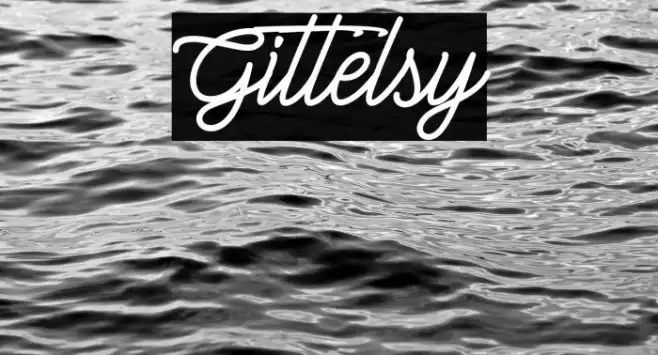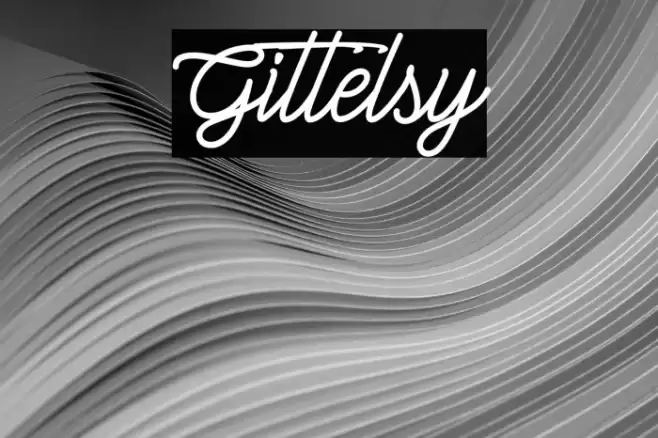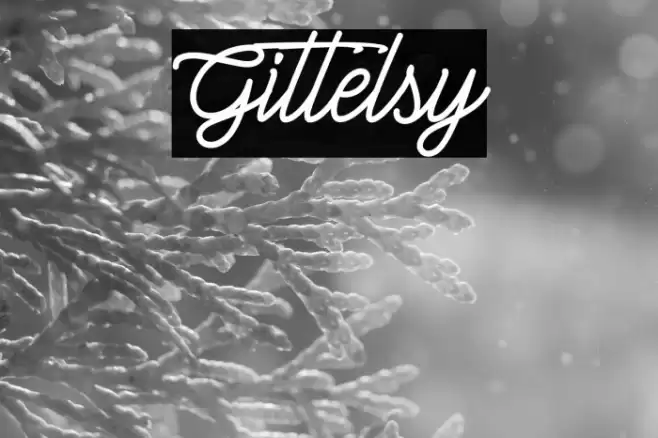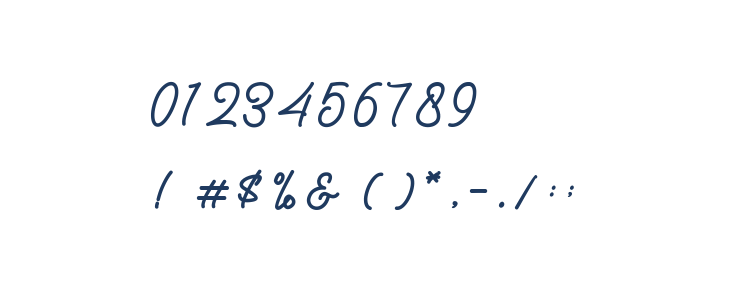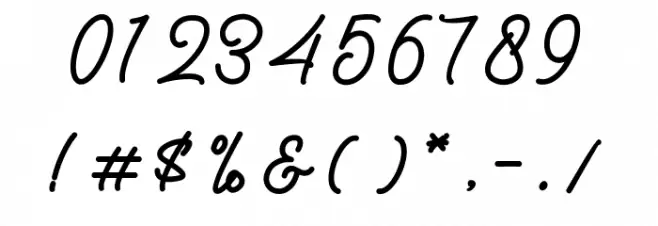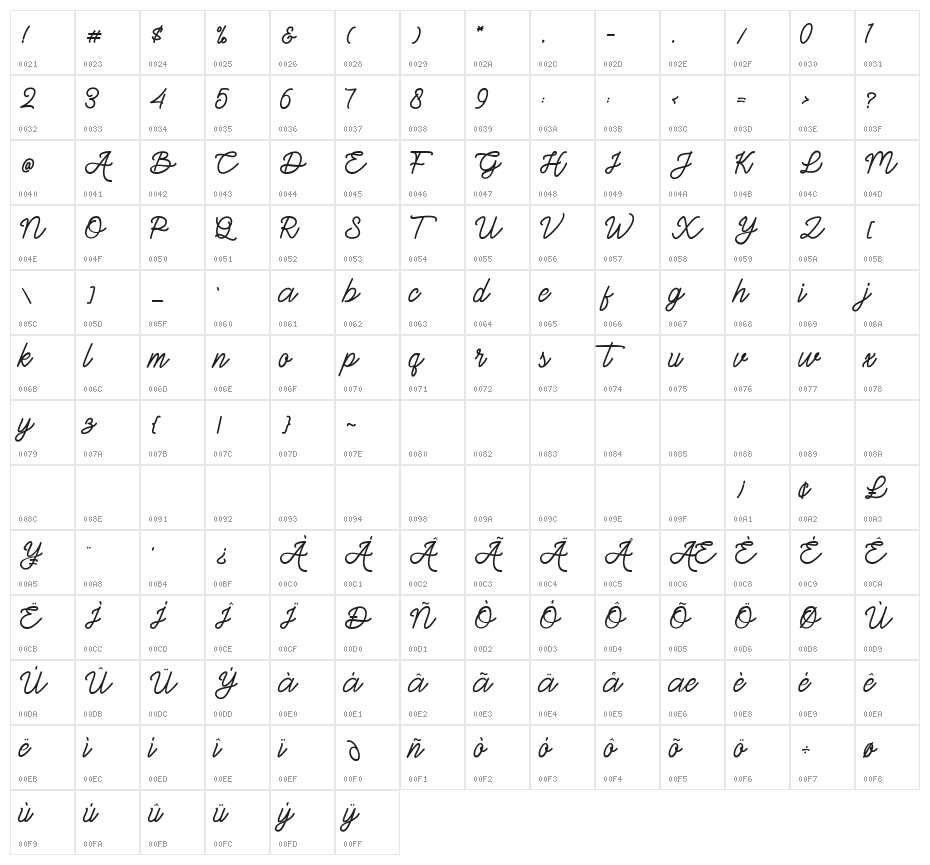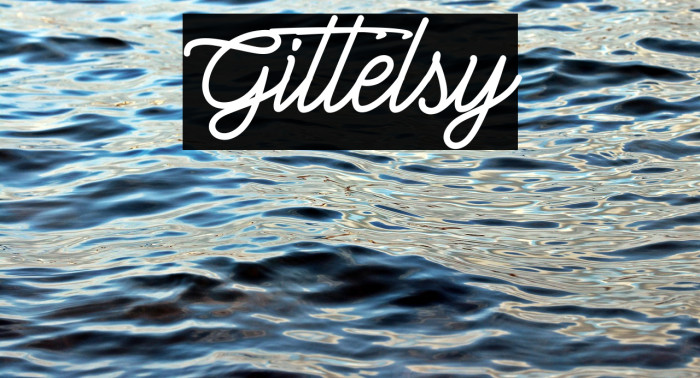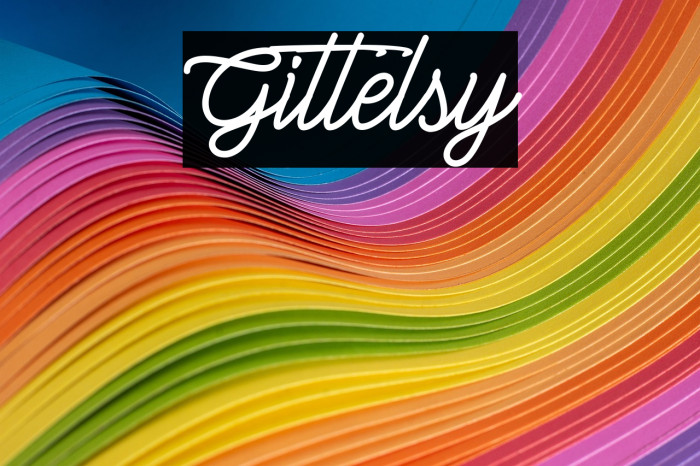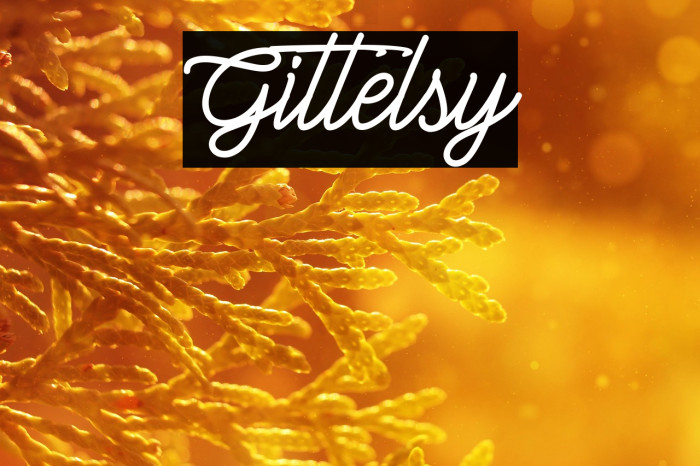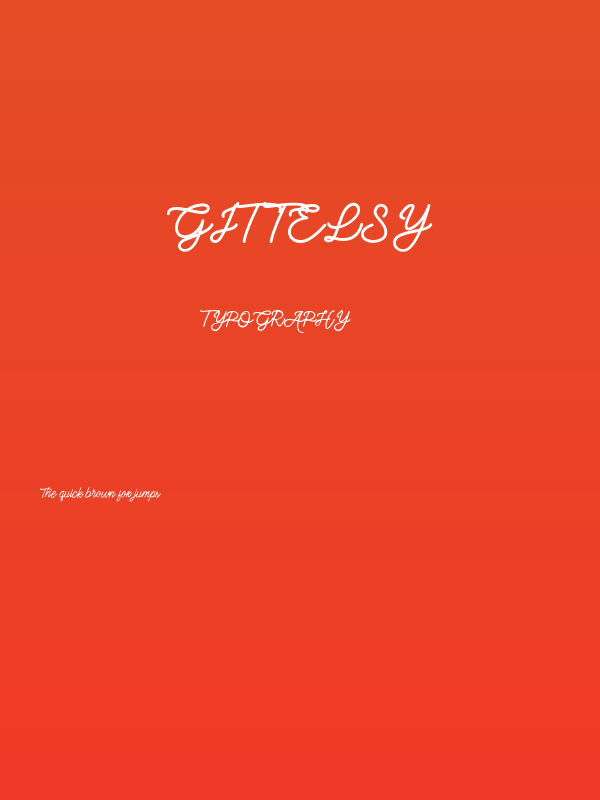
Gittelsy Font
Gittelsy Description
This font exudes a classic and elegant script style, characterized by its flowing and connected letterforms. The uppercase letters are gracefully looped and slightly slanted, giving a sense of movement and fluidity. The lowercase letters maintain a consistent rhythm, with smooth curves and delicate strokes. Numbers and special characters are crafted with the same attention to detail, ensuring a cohesive look throughout. The overall appearance is sophisticated, making it suitable for formal invitations, branding, and decorative purposes.
A classic and elegant script font with flowing, connected letterforms from Regular fonts.
- Font: Gittelsy
- Proposed Projects: Ideal for wedding invitations, elegant branding, greeting cards, and decorative signage.
- Overall Style: Classic
- Use Case: Logos, Invitations, Decorative text